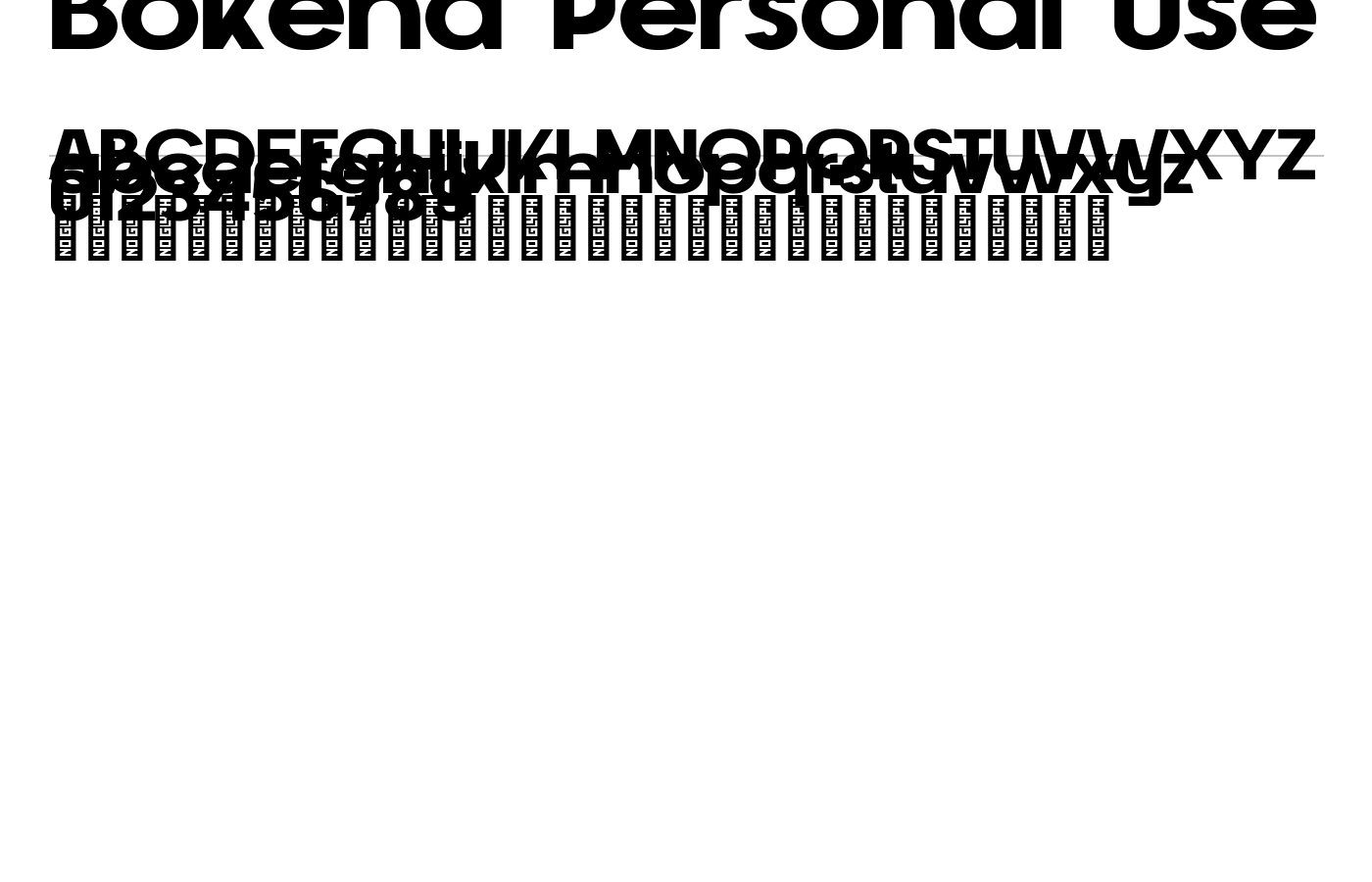
Bokena Personal Use is a bold, modern sans serif font with clean, rounded shapes that give it a friendly and approachable feel. Its wide and solid letterforms make it highly legible, ideal for striking headlines, logos, and branding that require a confident yet contemporary touch. This font works well in creative projects aiming for a fresh and strong visual impact.
Bokena Personal Use Font
About Bokena Personal Use Font